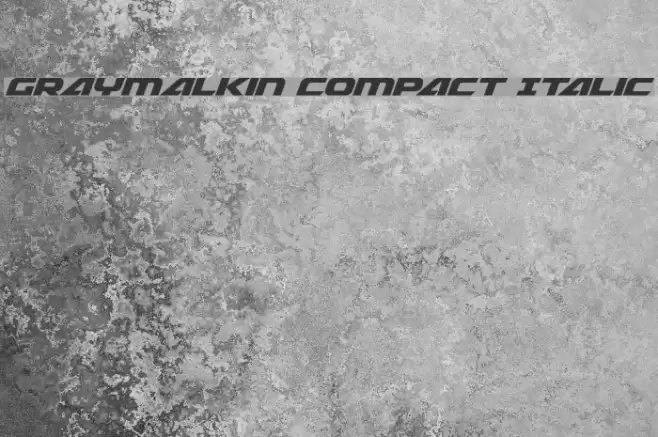
Graymalkin Compact Italic Font
Graymalkin Compact Italic Description
This font features a bold, italicized style with a futuristic and dynamic appearance. The characters are compact and slightly slanted, giving a sense of motion and speed. The design includes sharp angles and clean lines, making it suitable for modern and tech-oriented projects. The uppercase and lowercase letters maintain a consistent style, while the numbers and special characters are designed to match the overall aesthetic. The font's unique style makes it stand out, while its legibility ensures it remains practical for various uses.
A bold, italicized font with a futuristic and dynamic style from Uncategorized fonts.
- Proposed Projects: Ideal for tech branding, sports team logos, video game titles, and sci-fi themed designs.